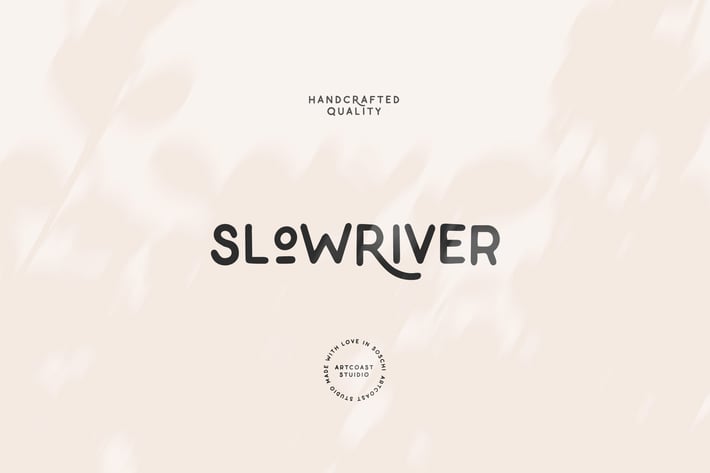
Slow River Handwritten Font
Slow River is a hand-lettered condensed sans serif font with brush rough touch to create dramatic font.
Slow River is perfect for branding projects, logo, wedding designs, social media posts, advertisements, product packaging, product designs, label, photography, watermark, invitation, stationery and any projects that need handwriting taste.